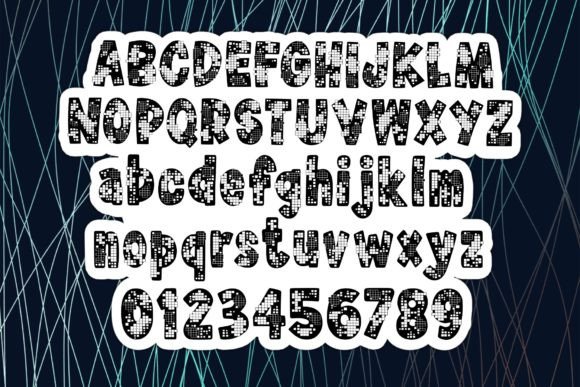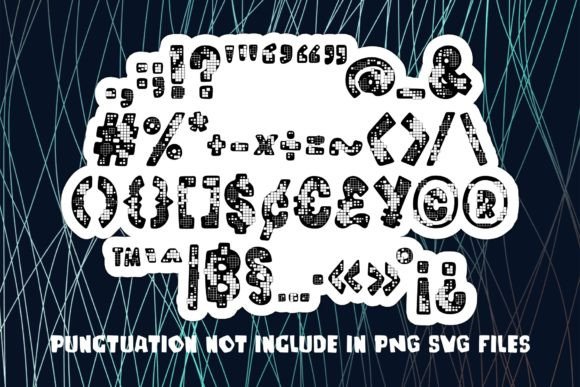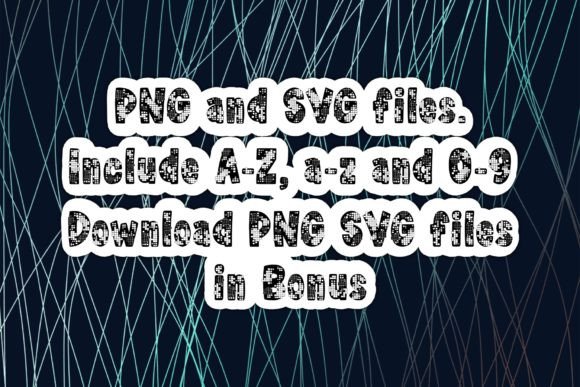
Introduction to Pixel Font
Have you ever been working on a creative project, scrolling through your design resources, and stumbled upon that one perfect font that makes your work stand out? For many designers, that moment is what makes all the late nights and caffeine-fueled sessions worth it. For those who crave that nostalgic, retro feel, look no further than the Pixel Font.
Inspired by the classic 8-bit games of our childhood, this Pixel Font is more than just a design resource – it’s a time capsule that transports us back to a bygone era of pixelated perfection. With its small, blocky characters arranged to form fun shapes, the Pixel Font is the perfect addition to any design project that needs a touch of vintage charm.
Key Features of Pixel Font
- High-quality pixel art font with a unique, retro aesthetic, perfect for creative projects.
- High-resolution font, designed to be crisp and clear at various sizes and resolutions, up to 300 DPI.
- Designed to be easily scalable, making it perfect for use in logos, icons, and other design elements.
Honest Review: Pixel Font
I recently had the chance to work with Pixel Font and I’m excited to share my thoughts on this design resource.
- ✨ High-quality pixel art fonts that are perfect for creative projects
- ✨ Easy to use and customize for various design applications
One thing that stands out about Pixel Font is its versatility. I was able to use it for a variety of projects, from video game design to digital art. The high-quality pixel art fonts are incredibly detailed and add a touch of nostalgia to any design.
- ⚠️ Limited font selection compared to other design resources
- ⚠️ Not ideal for complex or large-scale designs
Overall, I’m impressed with Pixel Font and would highly recommend it for designers working on creative projects. While it may have some limitations, the free download option and high-quality fonts make it a valuable resource for anyone looking to add a touch of pixel art to their designs.
Pixel Font is ideal for retro-style designs, video game-inspired projects, and minimalist art. It’s also great for adding a touch of nostalgia or whimsy to your creative work.